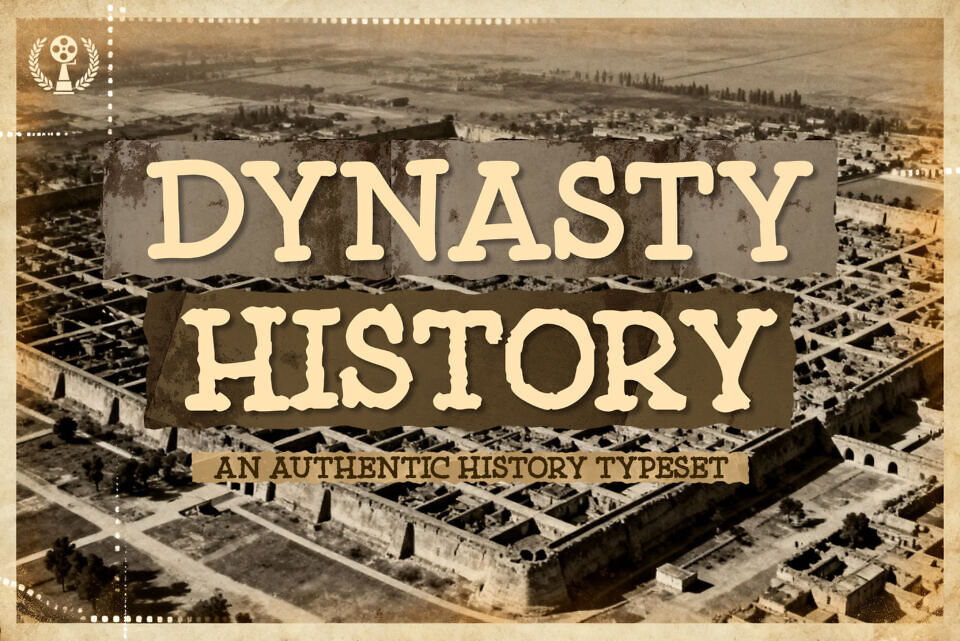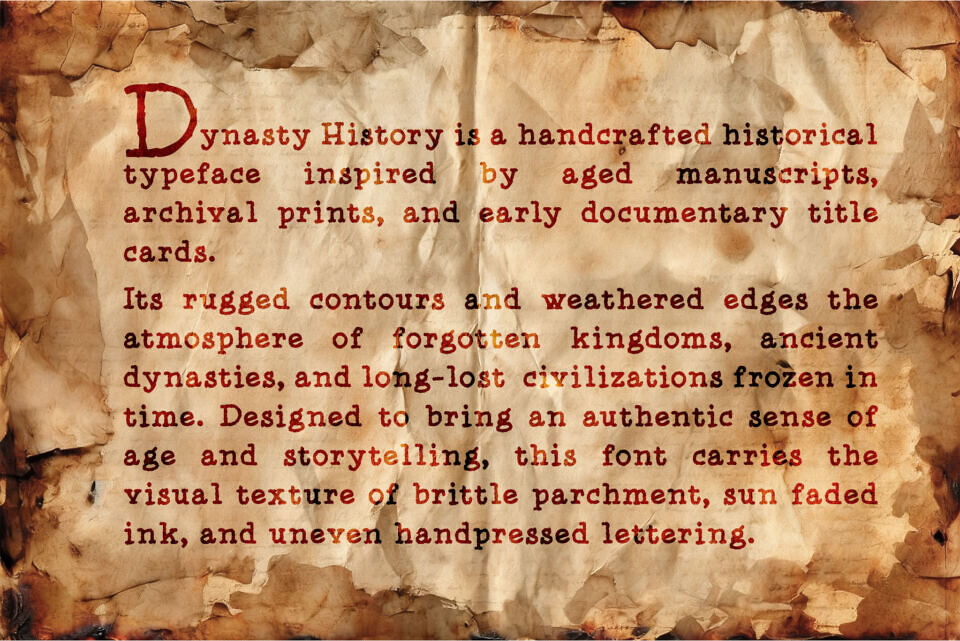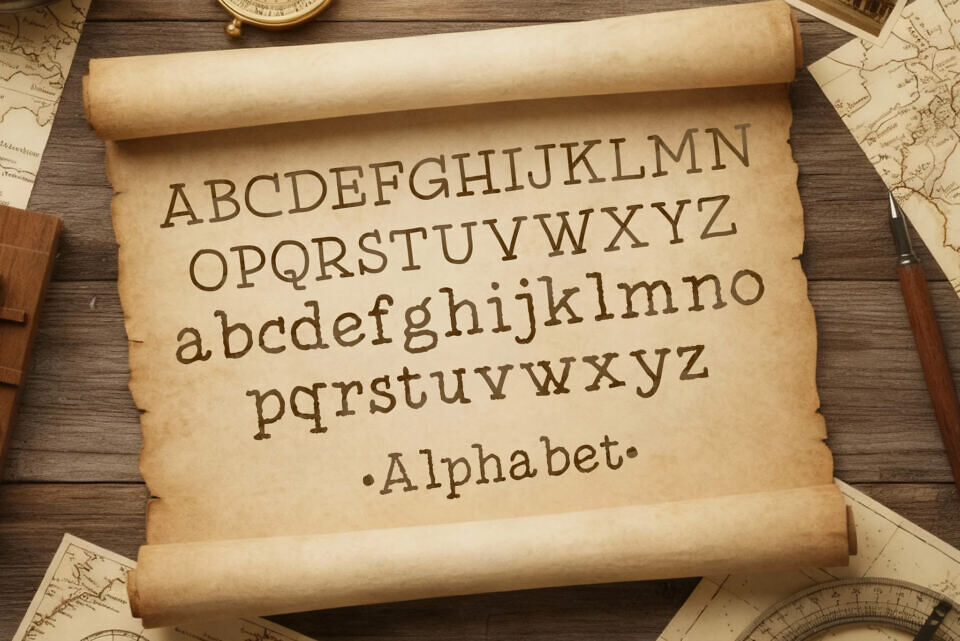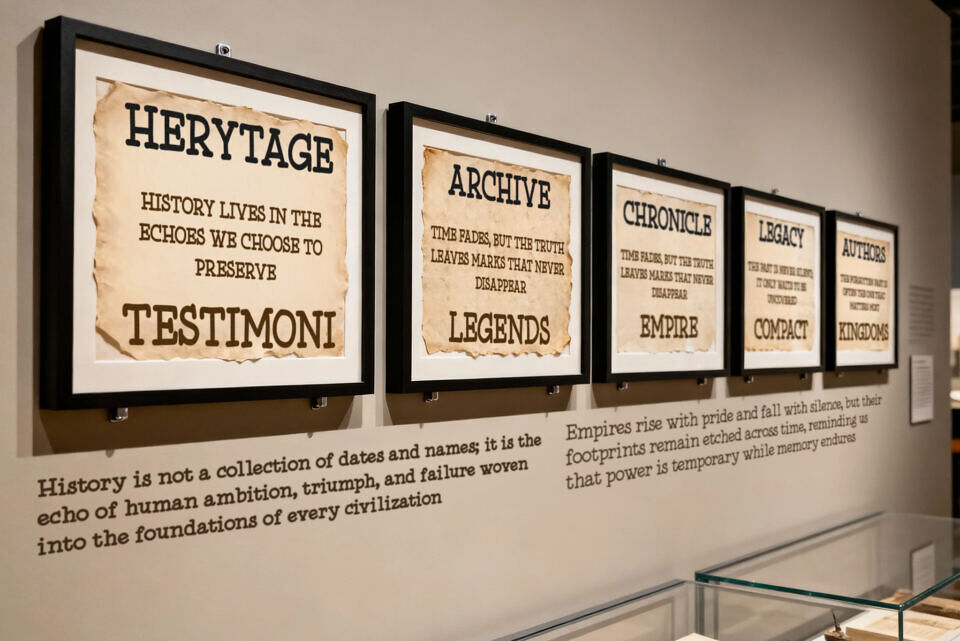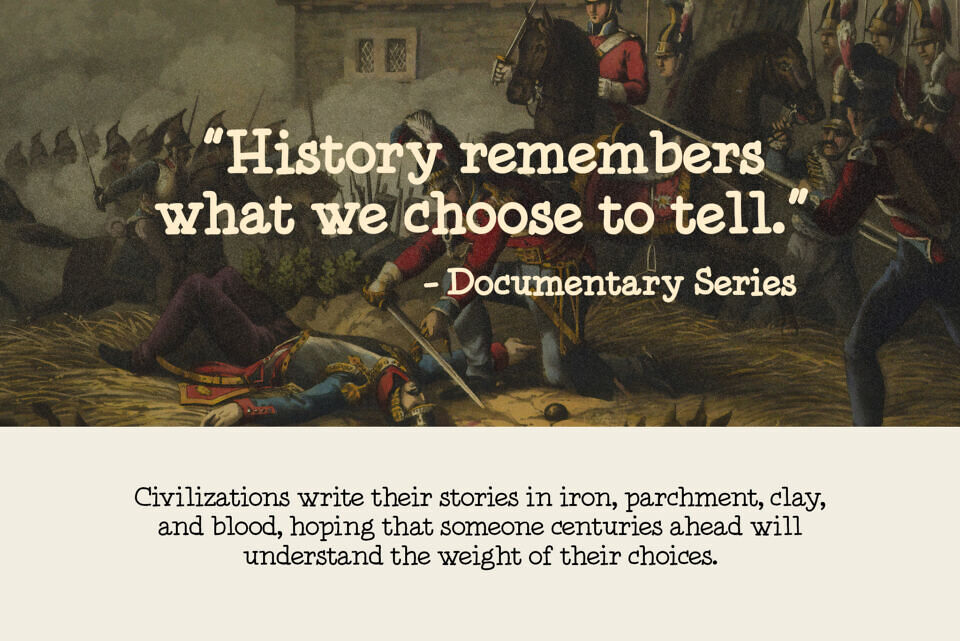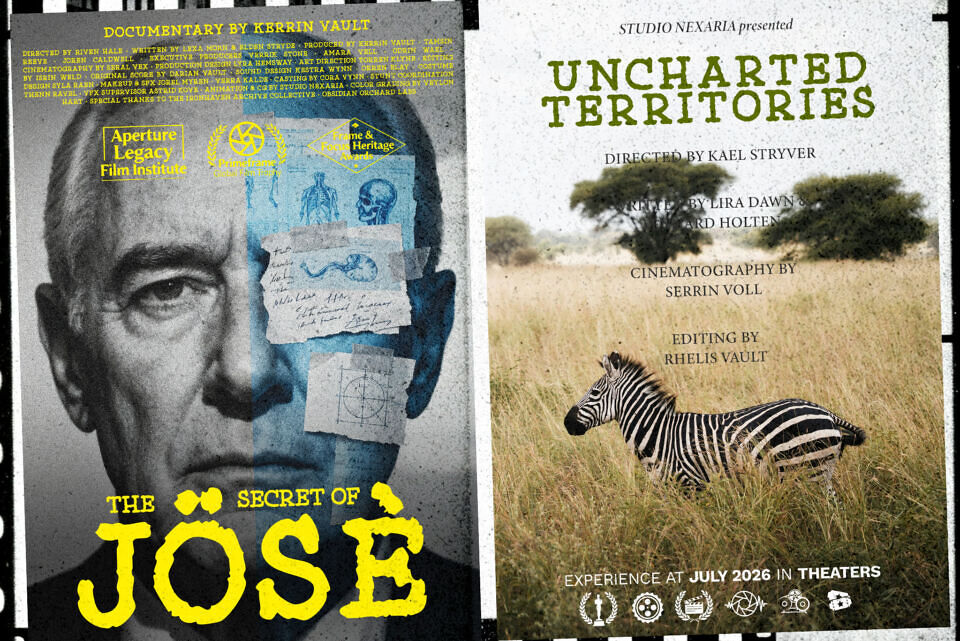
Dynasty History is a handcrafted documentary-inspired typeface designed to evoke timeless archives, ancient chronicles, and classic historical storytelling. Its rugged texture and bold character make it perfect for film titles, posters, museum visuals, and editorial layouts that demand authenticity.
Perfect for documentary films, archaeology themes, museum exhibitions, editorial spreads, biography covers, and atmospheric storytelling visuals. Dynasty History blends handcrafted imperfection with strong readability, allowing your titles and layouts to feel both cinematic and historically grounded.